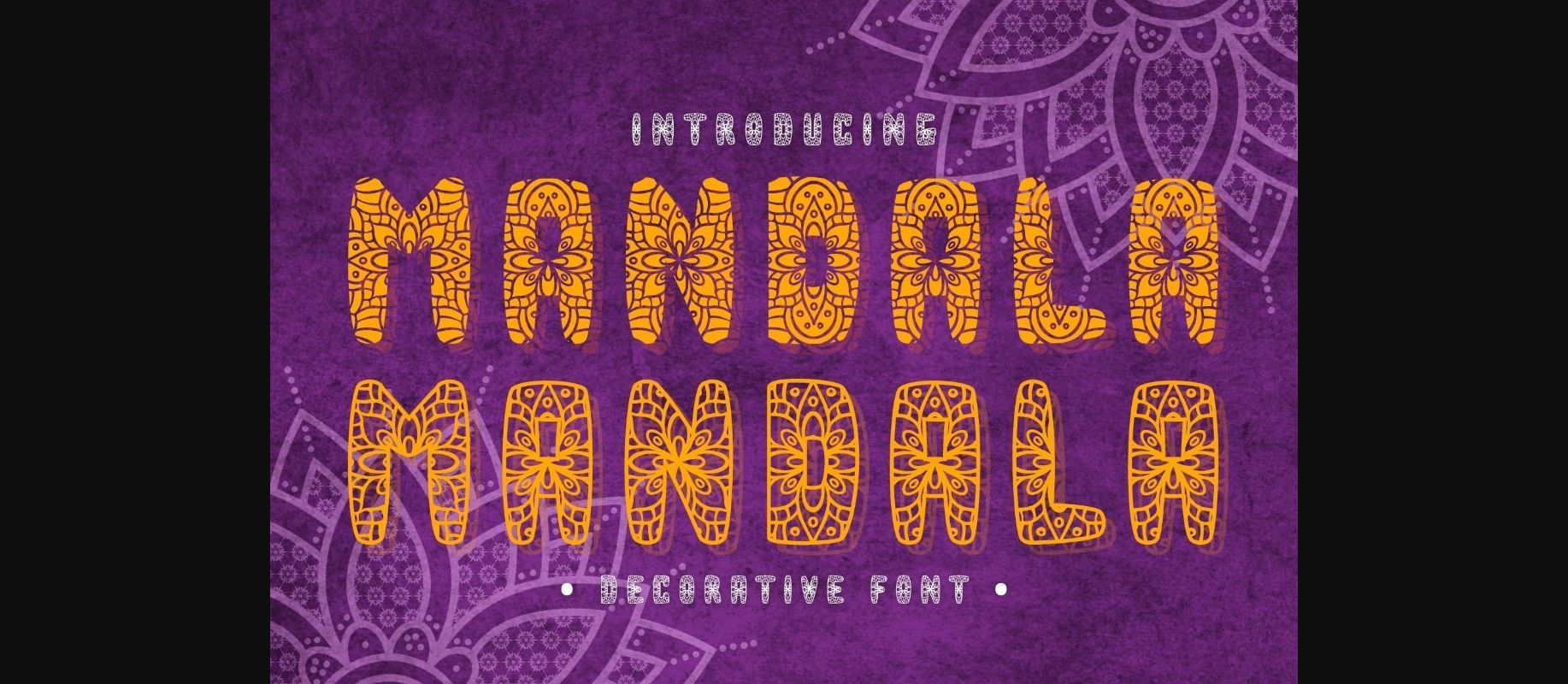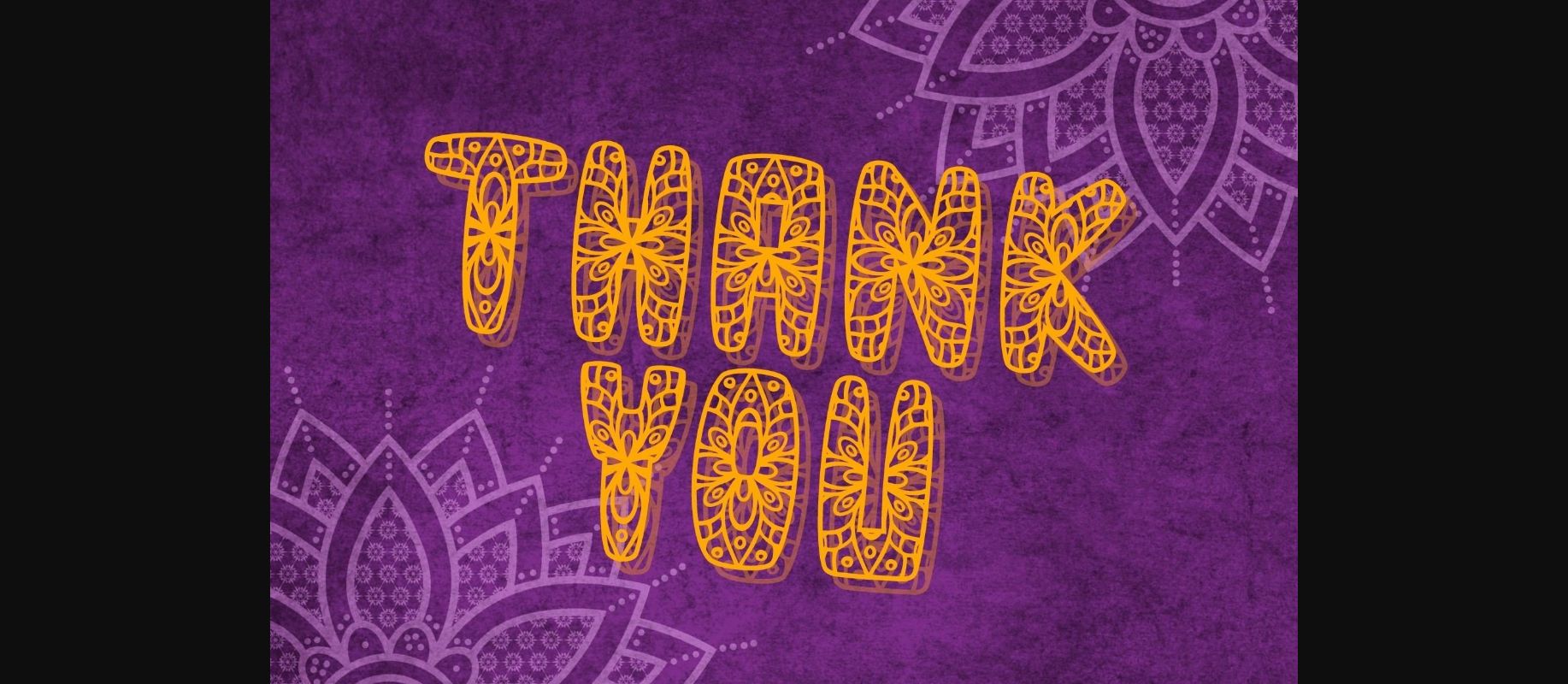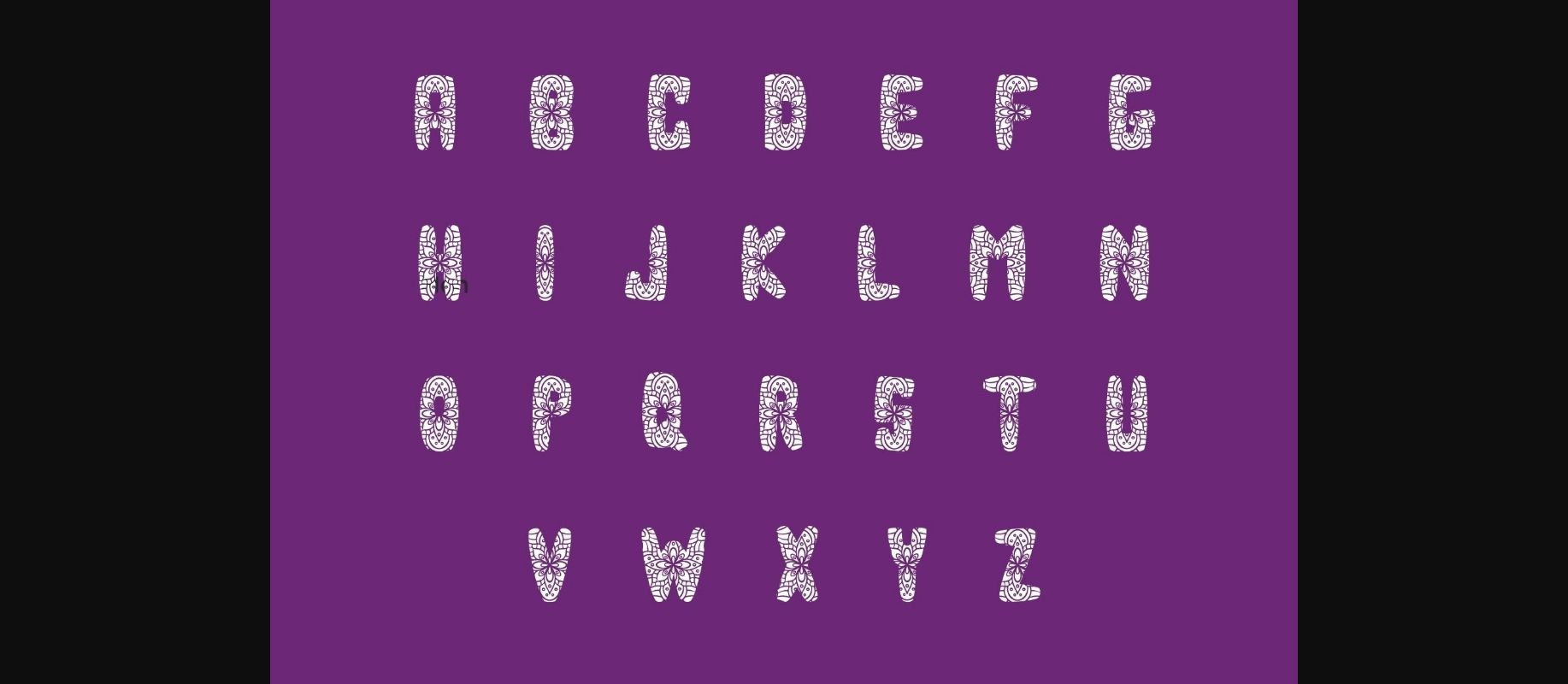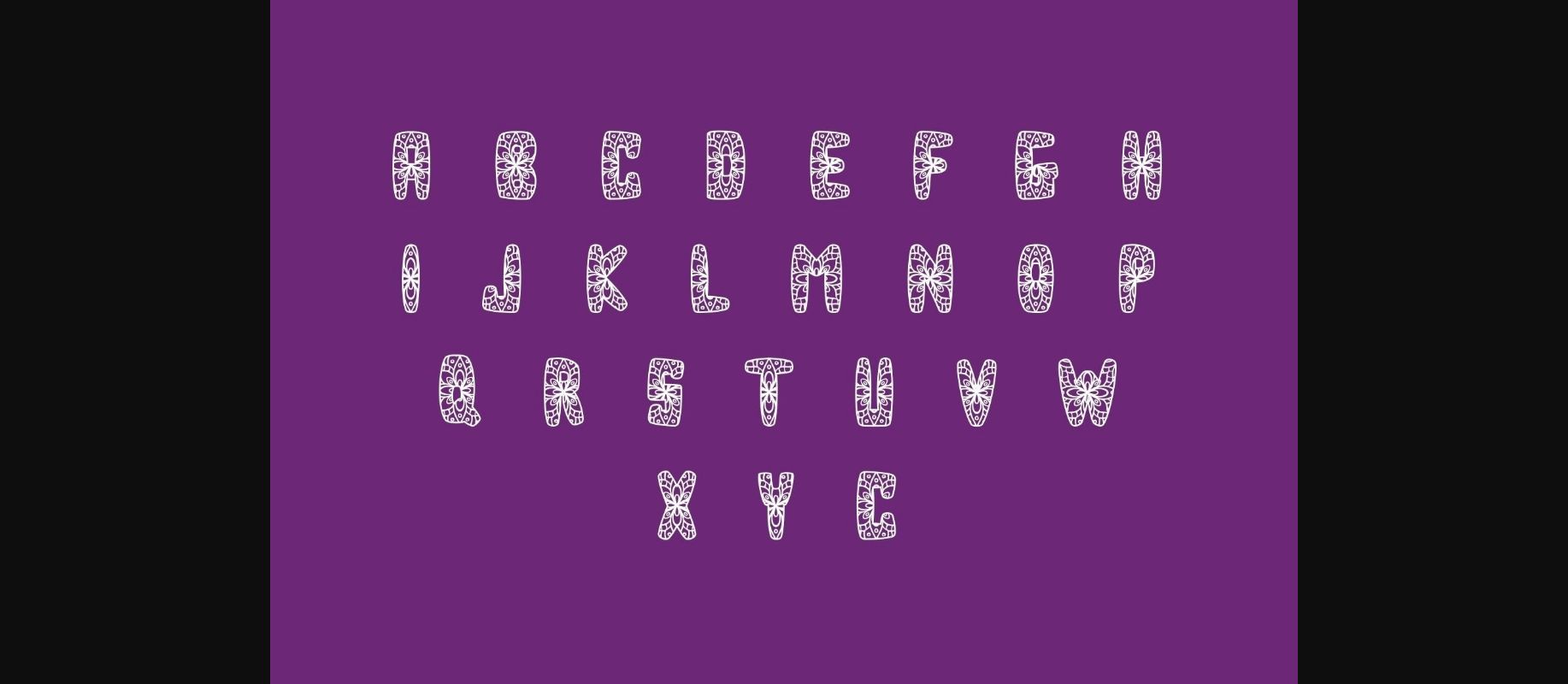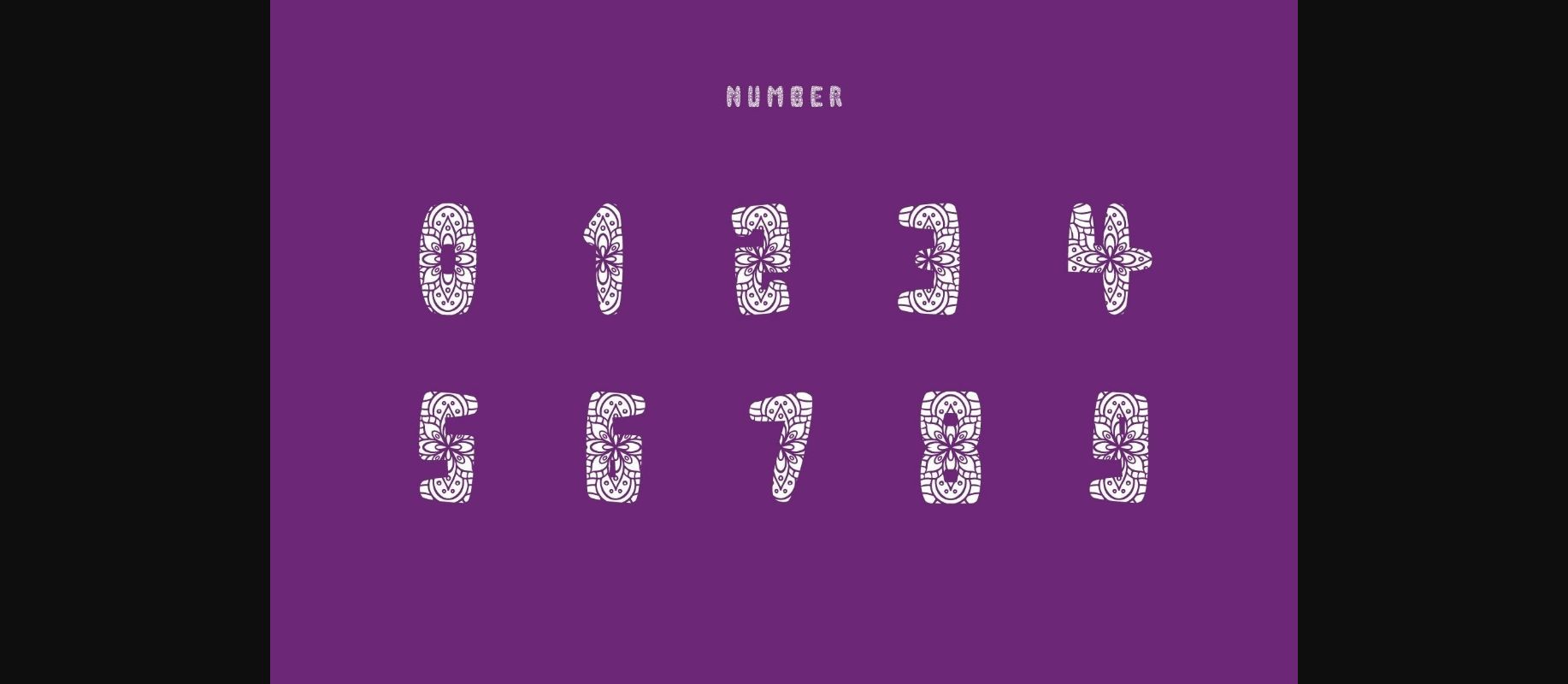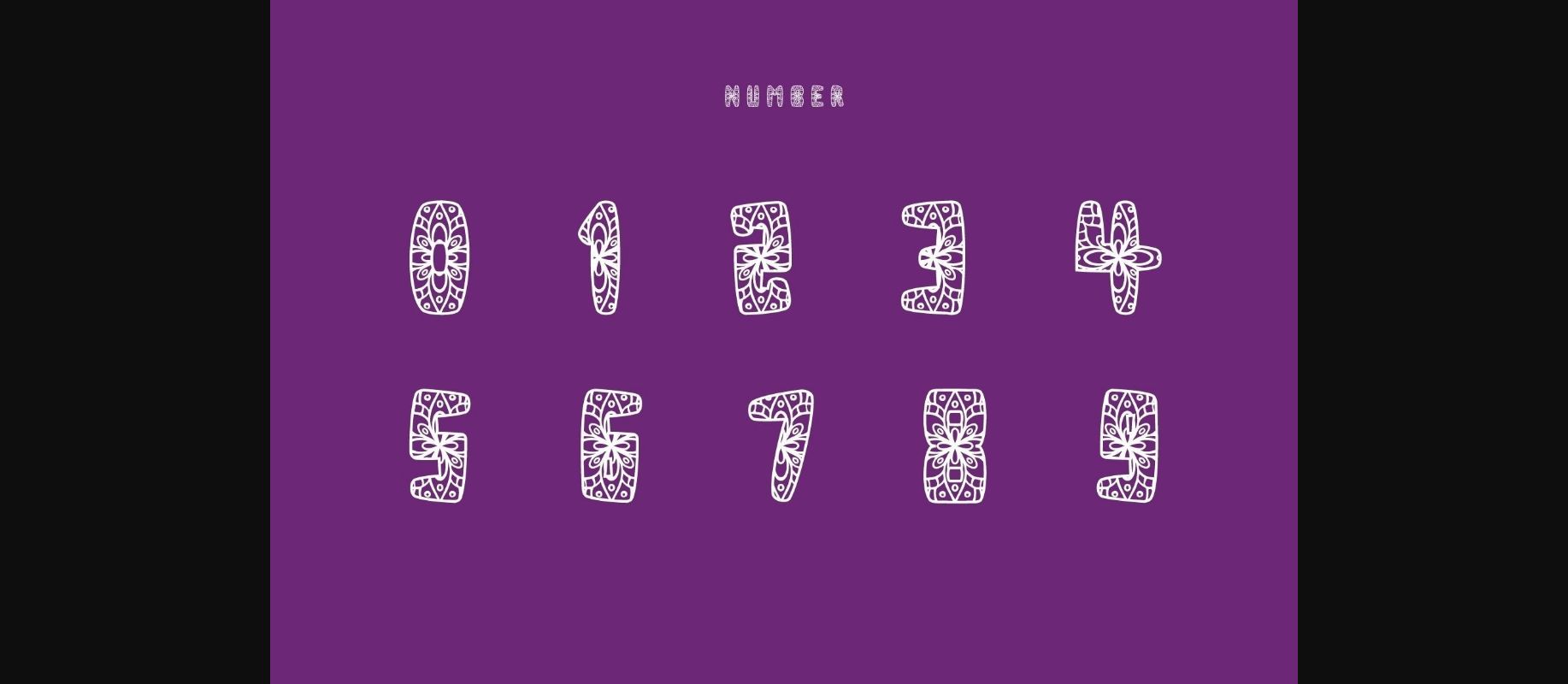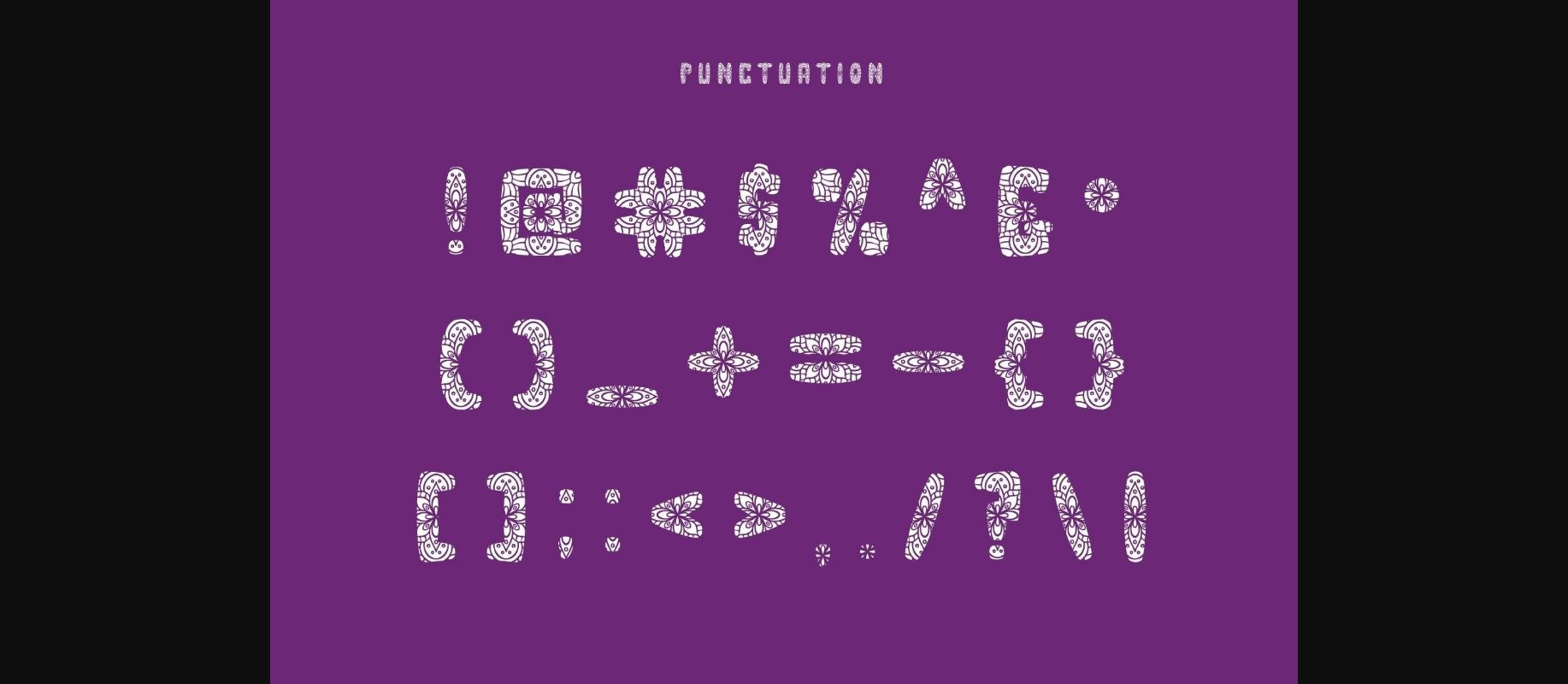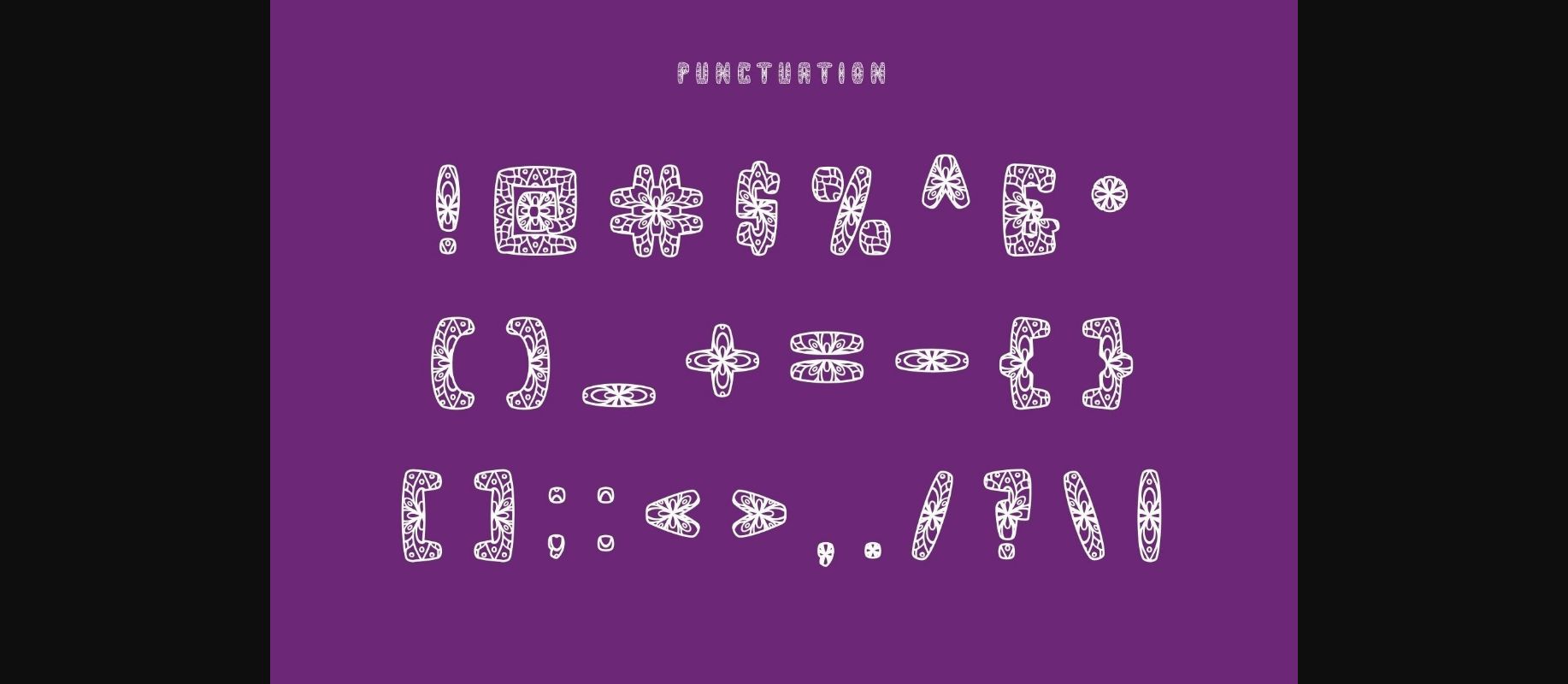
Mandala Font
About Mandala Font
Mandala is a vintage and fun decorative font. It embodies playfulness and authenticity and is the perfect choice for all your favorite projects, or even for blog posts, logos, branding, ads, invitations, greeting cards, planners, photo albums, decorations, and much more. Add it to any of your designs, and enjoy the results!